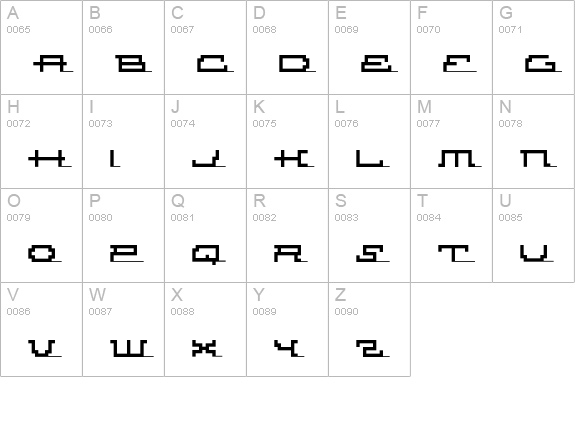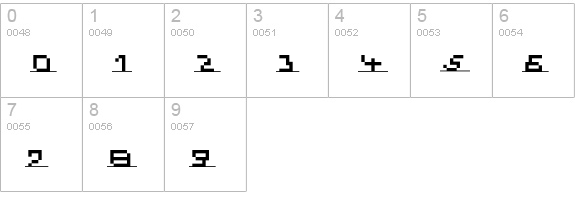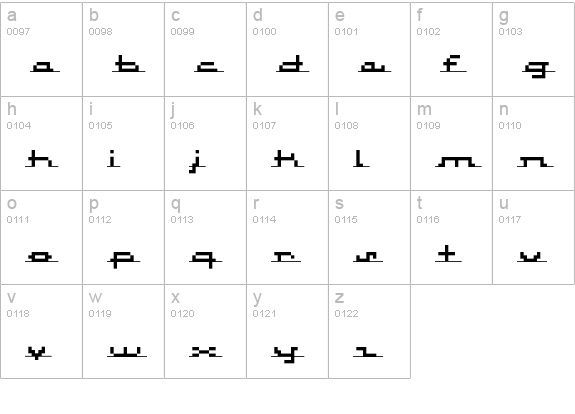
Introducing Atomic-InlineScript font, a versatile and modern typeface that adds a touch of sophistication to any design project. This unique font combines sleek lines with a hint of playfulness, making it perfect for a wide range of applications. Atomic-InlineScript font is meticulously crafted to ensure clarity and readability, making it ideal for both digital and print designs. Whether you're working on a branding project, website design, or social media graphics, this font will elevate your work to the next level. What's even better is that Atomic-InlineScript font is completely free to download at FontsMarket.com. So you can add this stylish font to your collection without breaking the bank. Don't miss out on the opportunity to enhance your design projects with the Atomic-InlineScript font today!